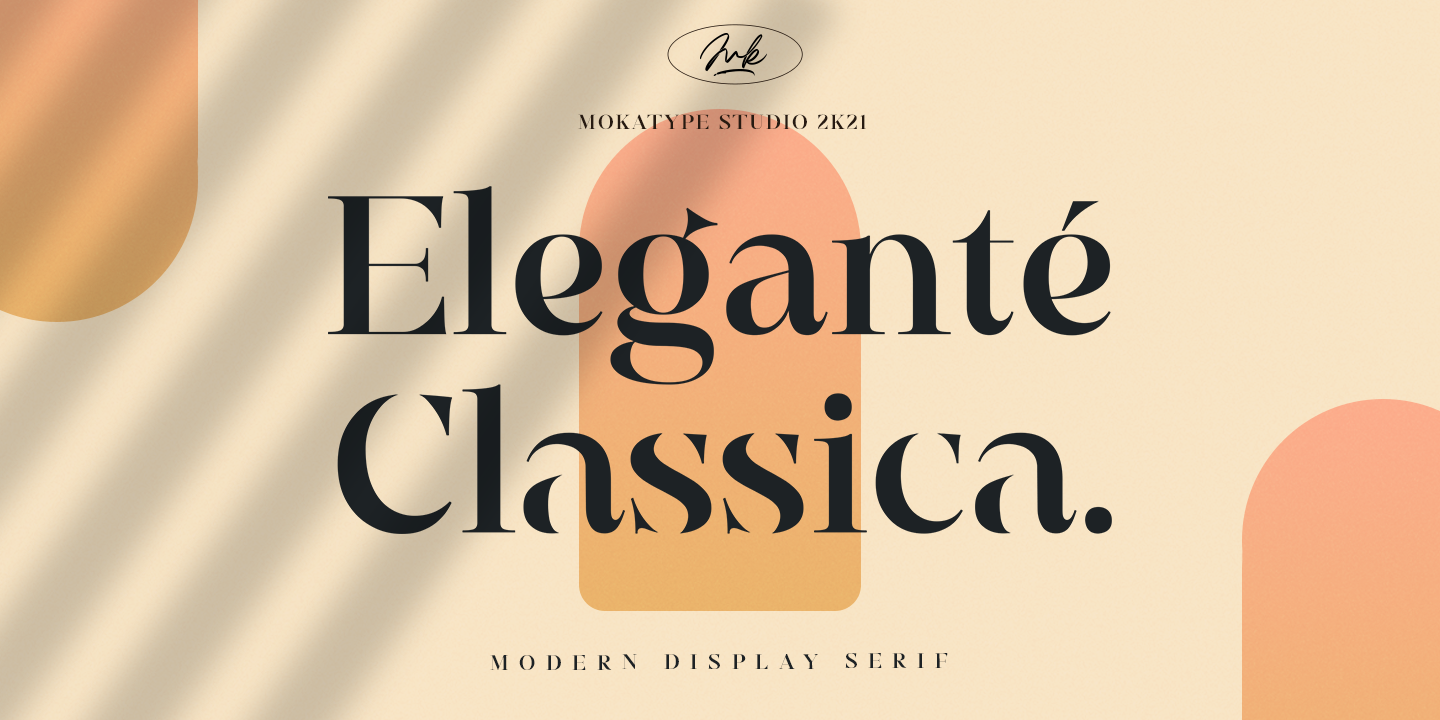
Elegante Classica Font is ideal for luxury fashion branding, high-end jewelry packaging, premium cosmetic labels, elegant wedding invitations, sophisticated restaurant menus, classical music programs, upscale hotel communications, luxury spa branding, fine art gallery exhibitions, prestigious award ceremonies, exclusive boutique signage, and timeless corporate identities. This distinguished typeface excels in applications requiring classical elegance and refined sophistication, making it perfect for luxury brands, premium services, cultural institutions, and businesses emphasizing timeless quality and aristocratic appeal.
What makes Elegante Classica Font exciting is its masterful embodiment of timeless elegance and classical refinement that transcends fashion trends. The font features graceful letterforms with sophisticated proportions and refined details that evoke the grandeur of classical European typography and aristocratic heritage. Its carefully balanced character spacing and elegant aesthetic create an atmosphere of luxury and cultural sophistication, while maintaining exceptional readability across all applications. The font's distinctive personality captures the essence of classical beauty and timeless elegance, making it perfect for brands seeking to establish prestigious identities rooted in tradition and refinement.
The Elegante Classica Font family typically includes multiple weights such as Thin, Light, Regular, Medium, Bold, and Black variations, along with their corresponding italic styles. Many collections also feature elegant script versions, classical ornaments, and sophisticated ligatures that enhance the font's aristocratic character. Some comprehensive packages include decorative borders, classical flourishes, and luxury design elements that provide complete typographic flexibility for high-end design projects requiring timeless sophistication.
Elegante Classica Font Free Download represents the perfect fusion of classical tradition and contemporary typographic excellence. This remarkable typeface brings instant prestige and aristocratic appeal to any project, making it particularly valuable for luxury brands, cultural institutions, and premium services seeking to establish distinguished brand identities that honor classical heritage. The font's versatile nature allows it to perform beautifully in both grand display applications and refined text settings.
Designers treasure Elegante Classica Font for its ability to instantly convey sophistication, cultural refinement, and timeless luxury that resonates with discerning audiences. The font's technical excellence ensures flawless rendering across various media and applications, while its classical appeal adds immediate prestige to any design project. The comprehensive character set includes extended Latin characters, classical ligatures, numerals, punctuation marks, and special symbols, making it suitable for international luxury communications and diverse classical applications.
This exceptional typeface successfully captures the essence of classical elegance and aristocratic heritage while offering modern functionality, providing designers with an authentic tool for creating memorable and impactful communications that resonate with audiences seeking genuine luxury experiences and timeless sophistication.